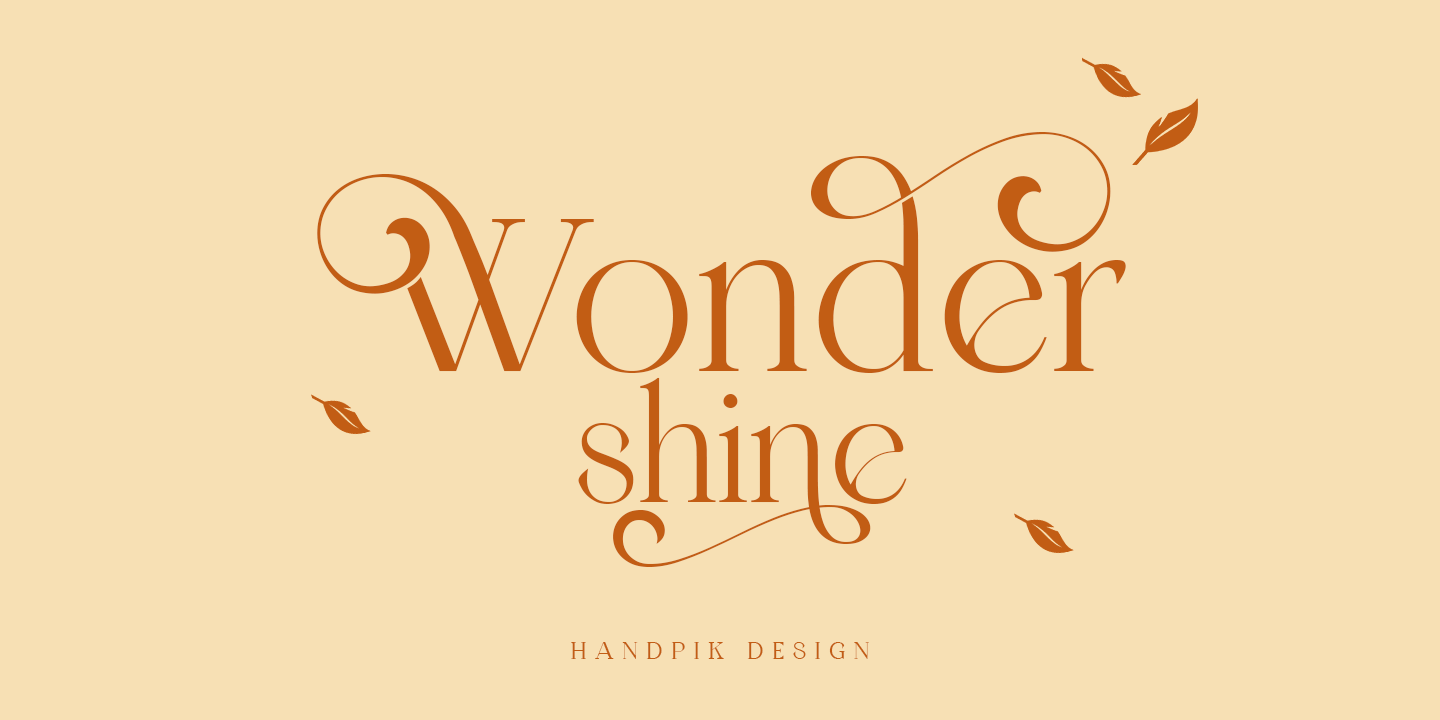
Wondershine Font is perfect for children's entertainment branding, magical toy packaging, wonder-themed party invitations, inspirational motivational materials, sparkly product advertising, and whimsical creative projects. Its magical character makes it ideal for toy manufacturers, children's entertainment venues, magic show promoters, inspirational coaches, and any application requiring dazzling typography that conveys wonder, magic, and the sparkling joy of childhood imagination.
Wondershine Font is exciting because it radiates pure wonder and magical sparkle through brilliantly crafted letterforms that capture the boundless excitement and shimmering joy of childhood dreams. Its luminous proportions and sparkling aesthetic evoke the magical moments when imagination takes flight, making it perfect for brands seeking to inspire wonder and create magical experiences. The font's wonderful character transforms ordinary messages into sparkling celebrations of joy and imagination.
Wondershine Font family includes wonder-filled weight variations typically featuring Light, Regular, Medium, and Bold options with sparkling styles that mirror magical luminosity. The family often incorporates magical symbols, sparkle ornaments, and whimsical character sets designed for enchanting applications, providing designers with comprehensive tools for creating authentic, wonder-inspired typographic experiences.
When selecting magical typography solutions, Wondershine Font Free Download represents an exceptional choice for wonder-themed creative projects. This dazzling typeface brings instant magical authenticity to any design, making it invaluable for children's brands, entertainment companies, and inspirational organizations celebrating wonder and imagination. Whether you're developing magical toy branding, creating inspirational marketing campaigns, or designing wonder-themed event materials, Wondershine Font provides the sparkling magic and joyful wonder essential for inspiring imagination in today's wonder-seeking audience.